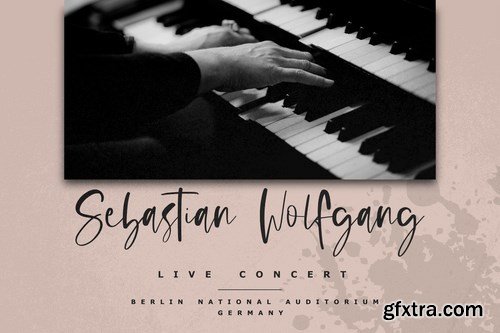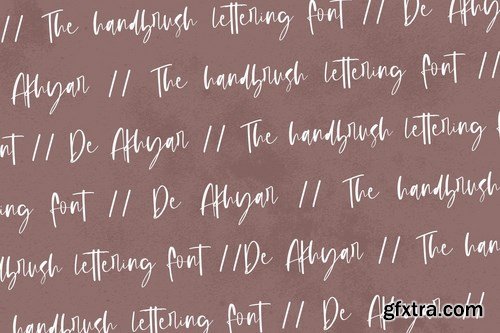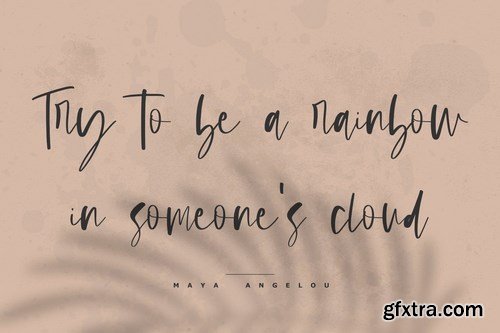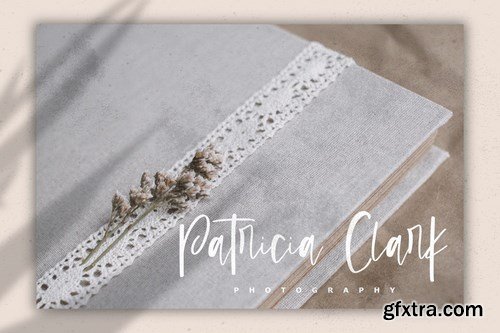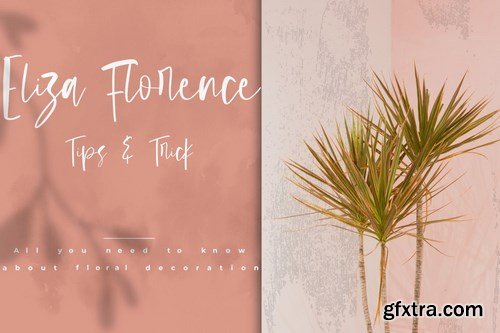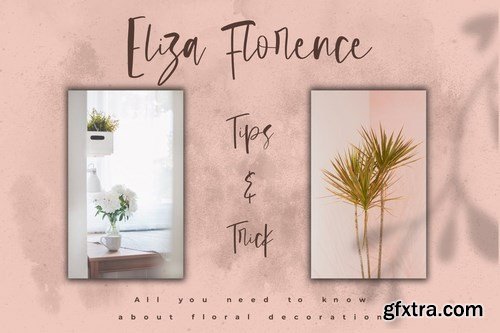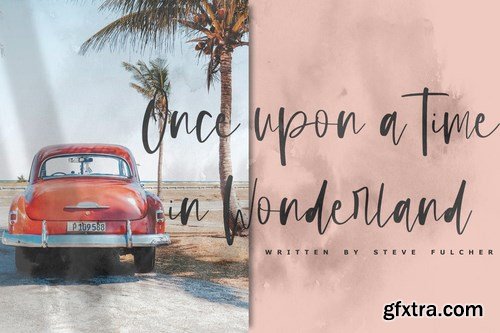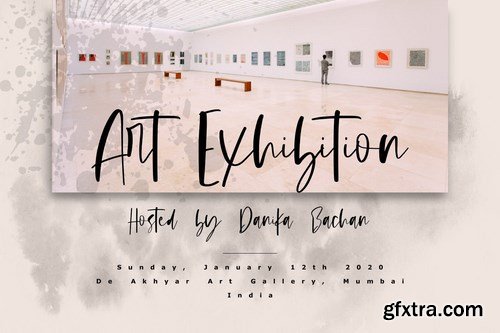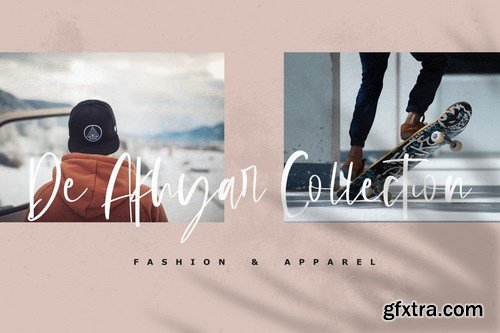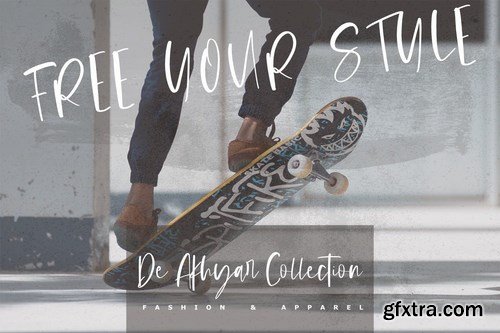
De Akhar - The Handbrush Lettering Font
Introducing De Akhar - The Handbrush Lettering Font. It comes with an elegant and feminine style which is perfect to make any design stand out! This font is perfect for branding, wedding invites, magazines, mugs, business cards, quotes, posters, and more.